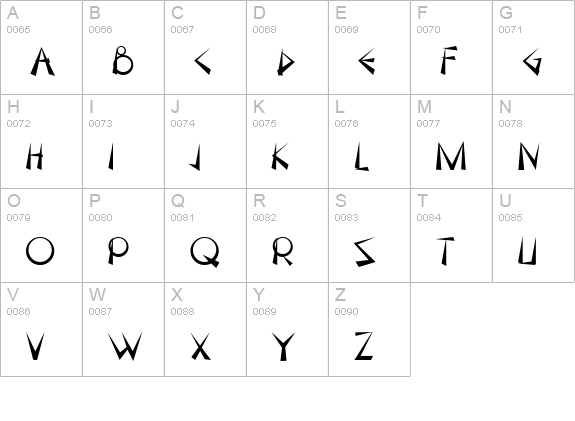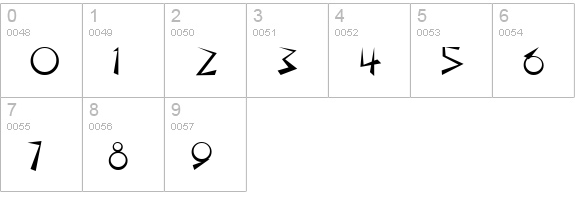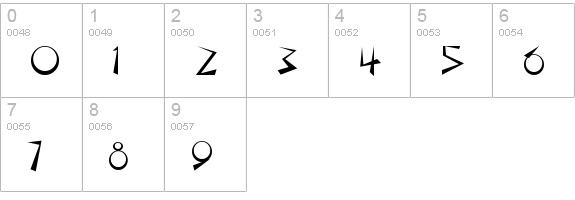
Demotte Bold Font Details
Demotte Bold is a strong, high-contrast variant in the Demotte typeface family \xE2\x80\x94 well suited to headlines, attention-grabbing titles, and strong calls-to-action.
Demotte Bold font is a stunning display typeface that exudes elegance and sophistication. With its bold and distinctive letterforms, this font commands attention and makes a strong visual impact. Perfect for headlines, logos, posters, and other design projects that require a touch of boldness. What's even better is that Demotte Bold font is available for free download at FontsMarket.com. Yes, you read that right - you can get your hands on this amazing font without spending a dime. So why wait? Download Demotte Bold font today and add a touch of elegance and style to your designs.